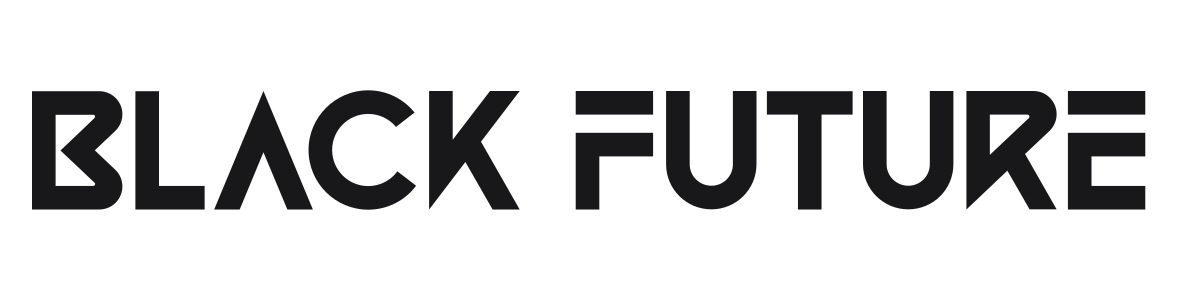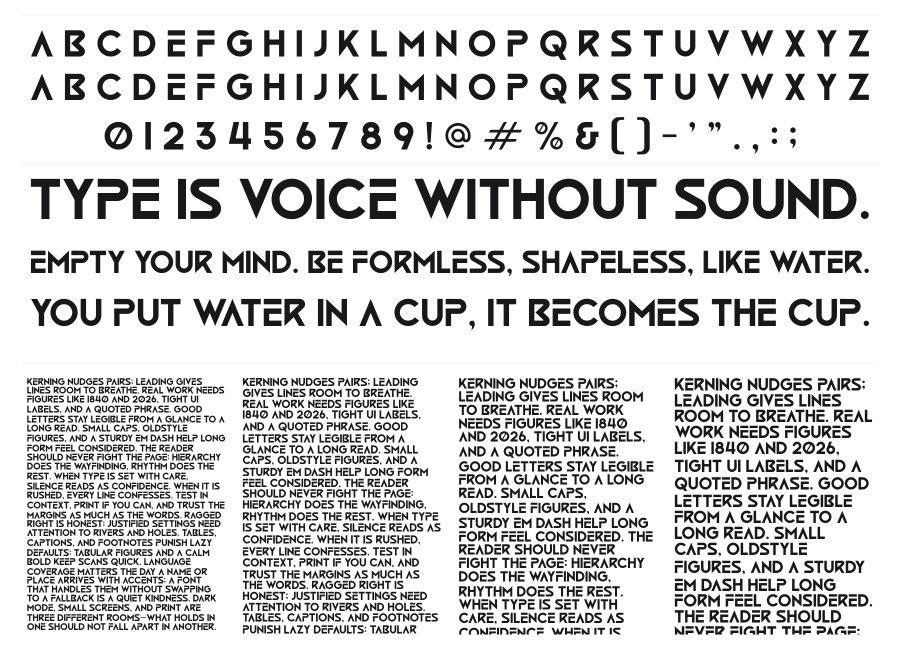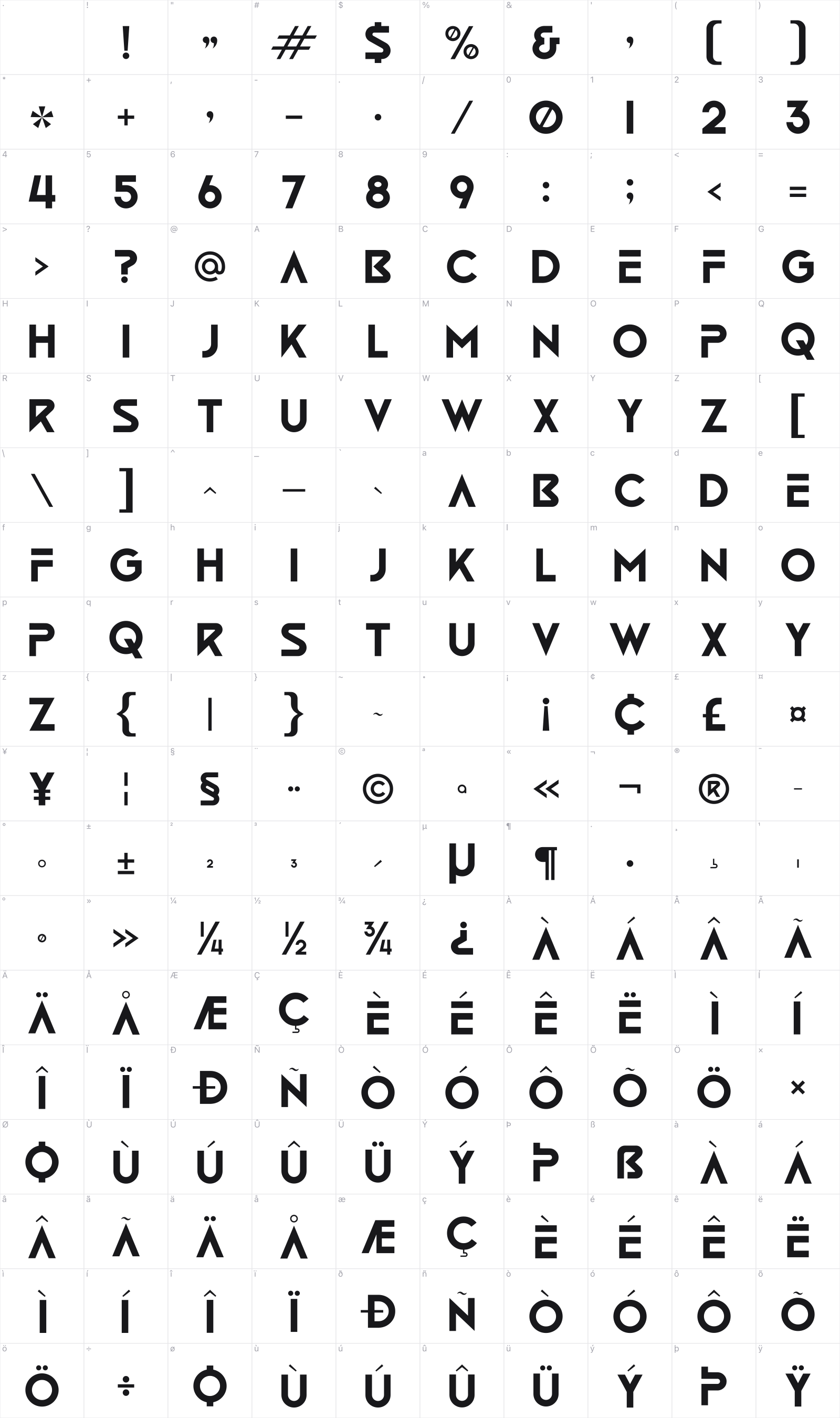
Black Future
Black Future is a bold geometric sans with angular notch cuts that break strokes into segmented, modular forms. The effect reads as futuristic and industrial, landing somewhere between spacecraft engineering and cyberpunk typography. Heavy weight and wide proportions make it commanding at large sizes.